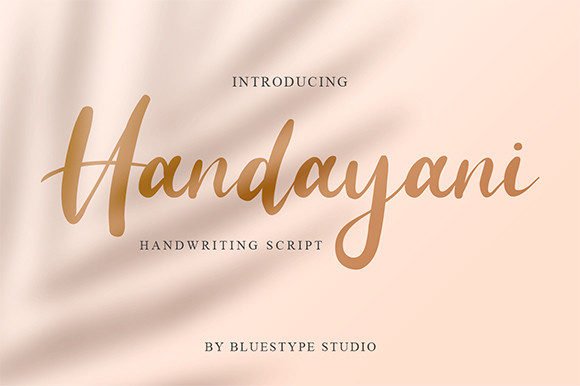
Introduction to Handayani Font
Handayani is a flexible, dainty and cursive paint brushed handwritten font.
It looks beautiful on a variety of designs requiring a personalized style, such as wedding invitations, thank you cards, weddings, greeting cards, logos and so on .